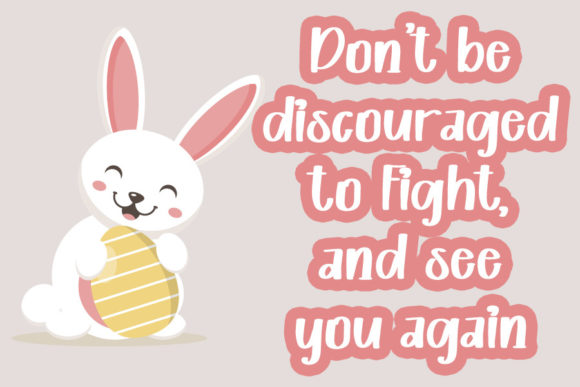
Introduction to Rabbit Tails Font Font
Fonts play a crucial role in design, and the Rabbit Tails Font font is a typeface that brings both character and versatility to any project. Whether you’re working on a branding project, a website, or a print design, the Rabbit Tails Font font offers a unique style that can elevate your work.
Rabbit Tails is a simple and cute display font.
Not too thin and not too thick, balanced and varied, this font was designed to enhance the beauty of your projects .
Key Features of Rabbit Tails Font Font
Why Choose Rabbit Tails Font Font?
The Rabbit Tails Font font is more than just a typeface – it’s a design tool that helps you communicate your message with style and clarity. Its unique character set and versatile design make it suitable for a wide range of applications, from elegant invitations to bold headlines.
With its carefully crafted letterforms and balanced proportions, the Rabbit Tails Font font ensures readability and visual appeal across all mediums.
What makes Rabbit Tails Font font special?
The Rabbit Tails Font font stands out with its unique design, exceptional readability, and versatility across various design applications.